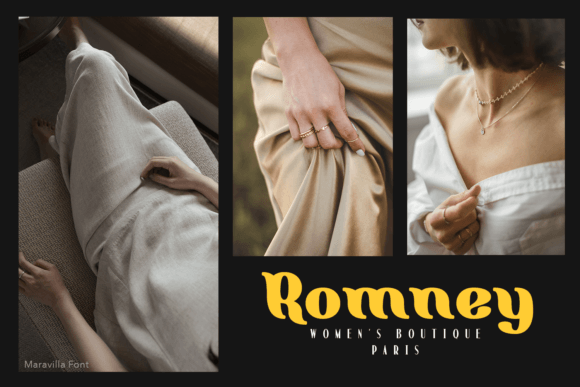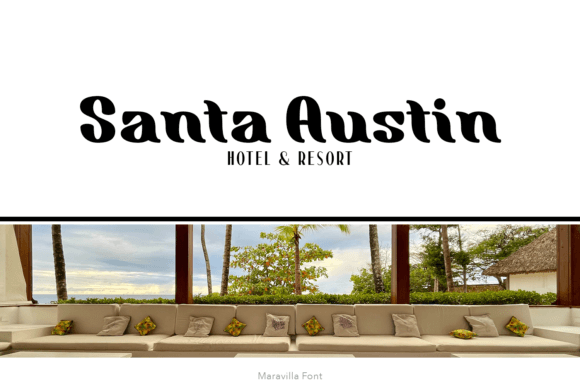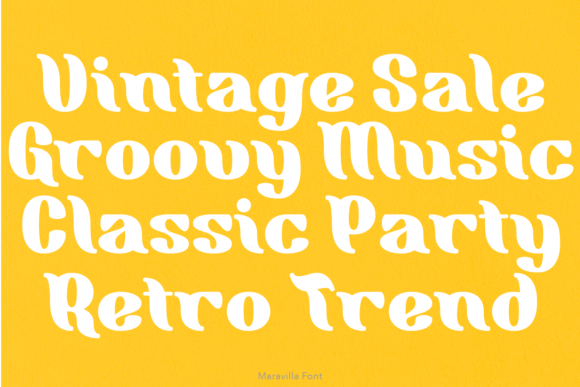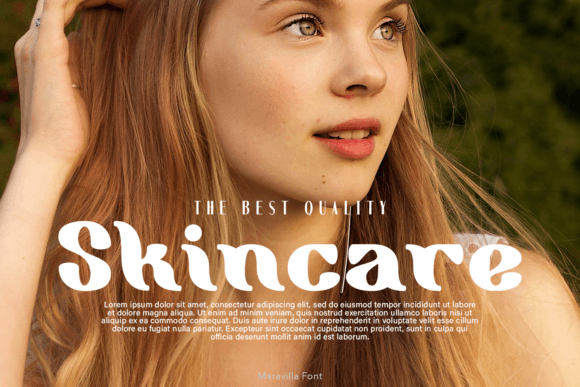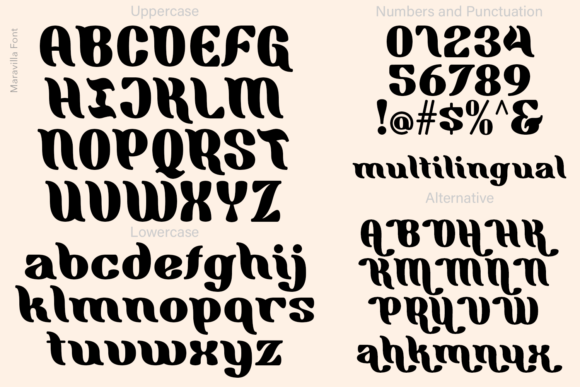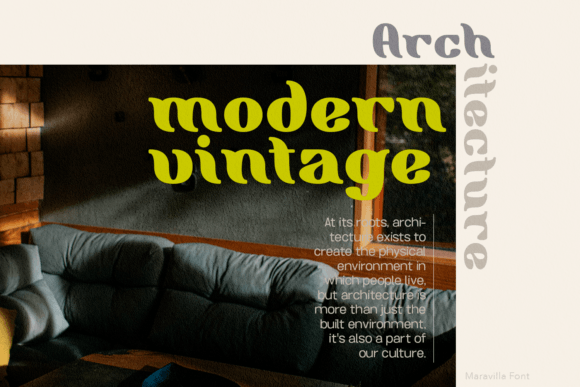
Introduction to Maravilla Font Font
Fonts play a crucial role in design, and the Maravilla Font font is a typeface that brings both character and versatility to any project. Whether you’re working on a branding project, a website, or a print design, the Maravilla Font font offers a unique style that can elevate your work.
Maravilla is a vintage font, that comes with single-weight, legible, and expressive shapes.
A lot of stylish alternate characters will make this font suitable for any project design .
The Maravilla Font font is more than just a typeface – it’s a design tool that helps you communicate your message with style and clarity. Its unique character set and versatile design make it suitable for a wide range of applications, from elegant invitations to bold headlines.
With its carefully crafted letterforms and balanced proportions, the Maravilla Font font ensures readability and visual appeal across all mediums.
The Maravilla Font font stands out with its unique design, exceptional readability, and versatility across various design applications.